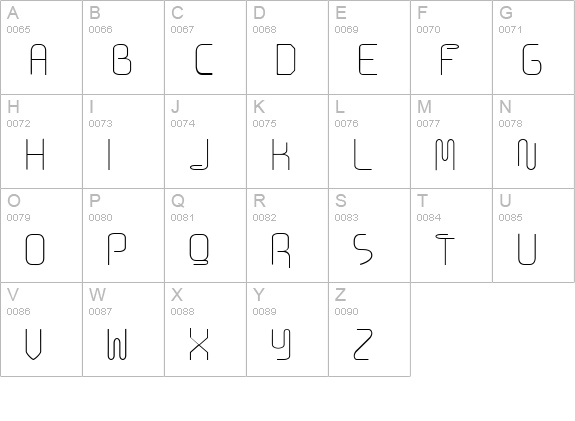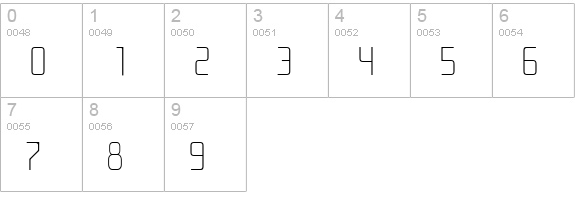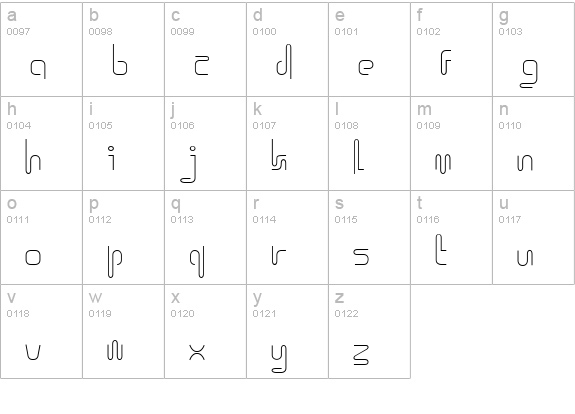
Icklips Font Details
Introducing Icklips font, a stunning display typeface that effortlessly combines elegance with a touch of whimsy. This versatile font is perfect for adding a unique flair to any design project, whether it be for logos, posters, invitations, or branding materials. With its bold and distinctive letterforms, Icklips font is sure to capture attention and leave a lasting impression. But what makes Icklips font even more remarkable is that it is absolutely free! Yes, you read that right. This incredible font can be downloaded at no cost from FontsMarket.com. We believe that creativity should know no bounds, and by offering Icklips font for free, we aim to empower designers and artists to bring their visions to life without any limitations. Every character in Icklips font has been meticulously crafted to perfection, ensuring a seamless flow and harmonious balance throughout your designs. The unique combination of sharp angles and playful curves gives Icklips font a distinctive personality that sets it apart from other fonts. With a wide range of weights and styles available, Icklips font offers endless possibilities for customization. Whether you prefer a bold and impactful look or a more delicate and refined aesthetic, this font has got you covered. Experiment with different weights and styles to find the perfect fit for your project. So why wait? Download Icklips font for free today and unleash your creativity like never before. With its captivating charm and endless potential, this font is sure to become a go-to favorite in your design toolkit. Don't miss out on the opportunity to elevate your designs to new heights with the help of Icklips font, freely available at FontsMarket.com.